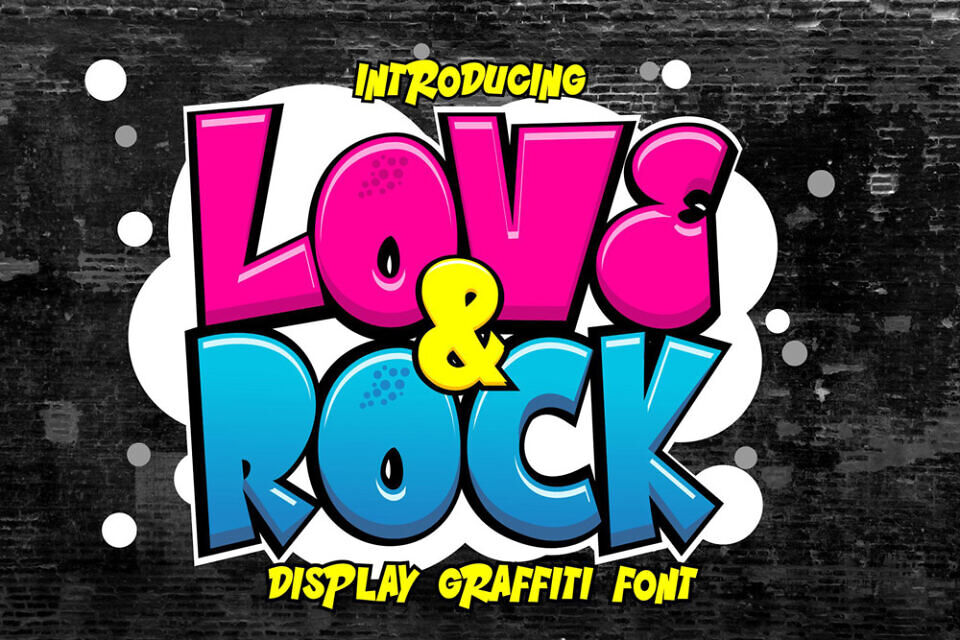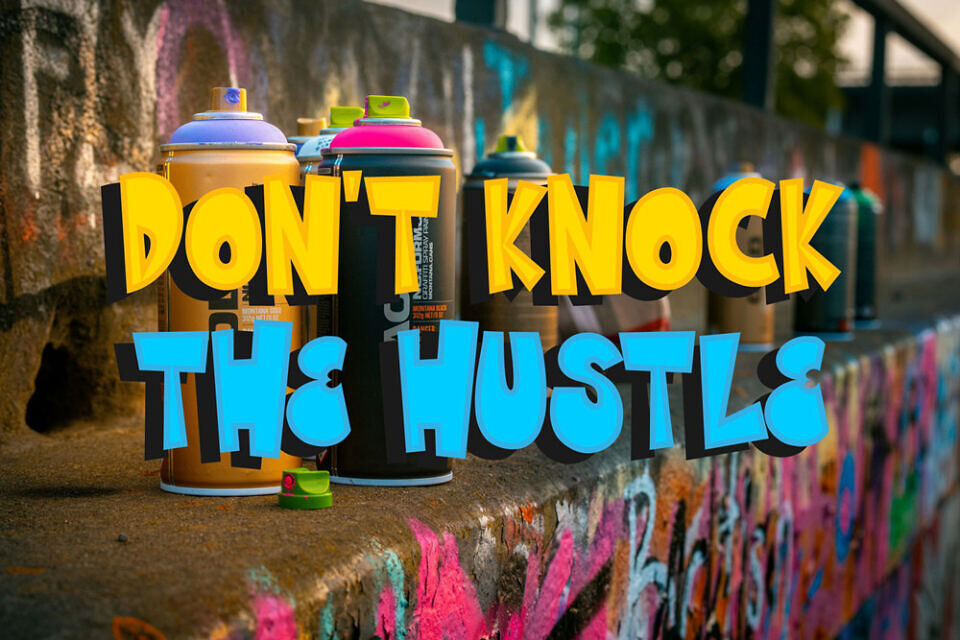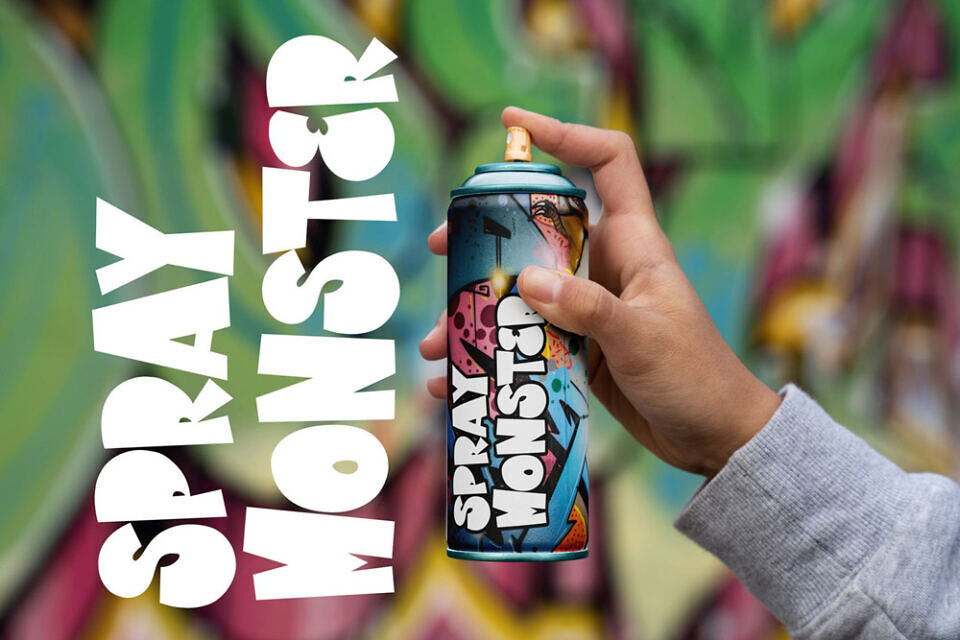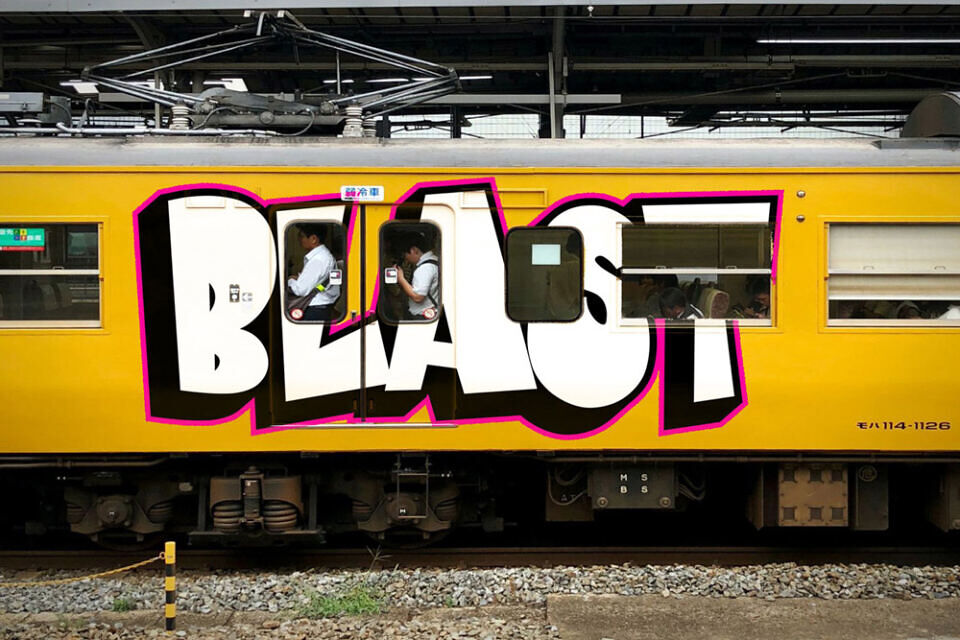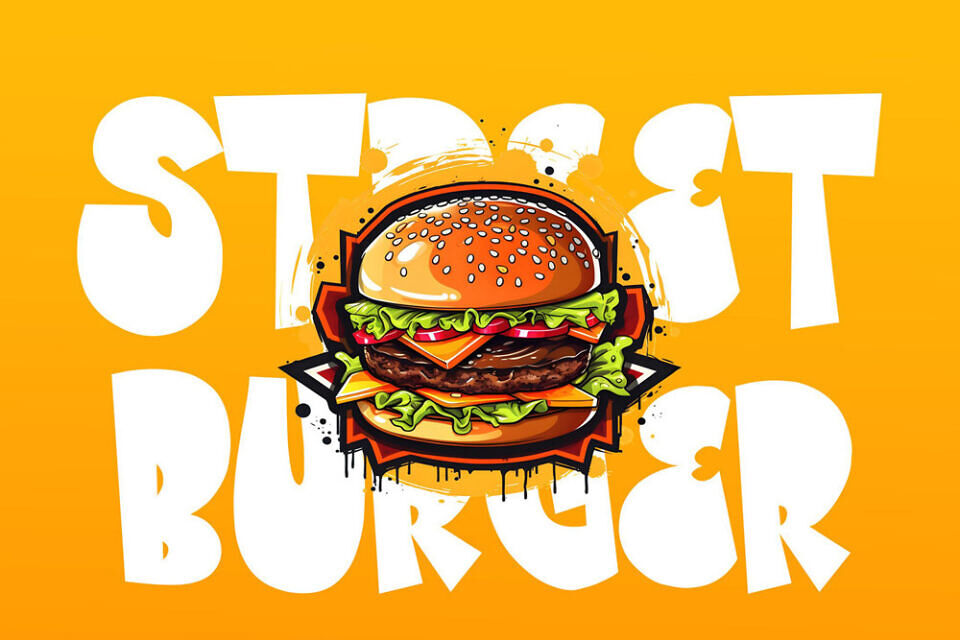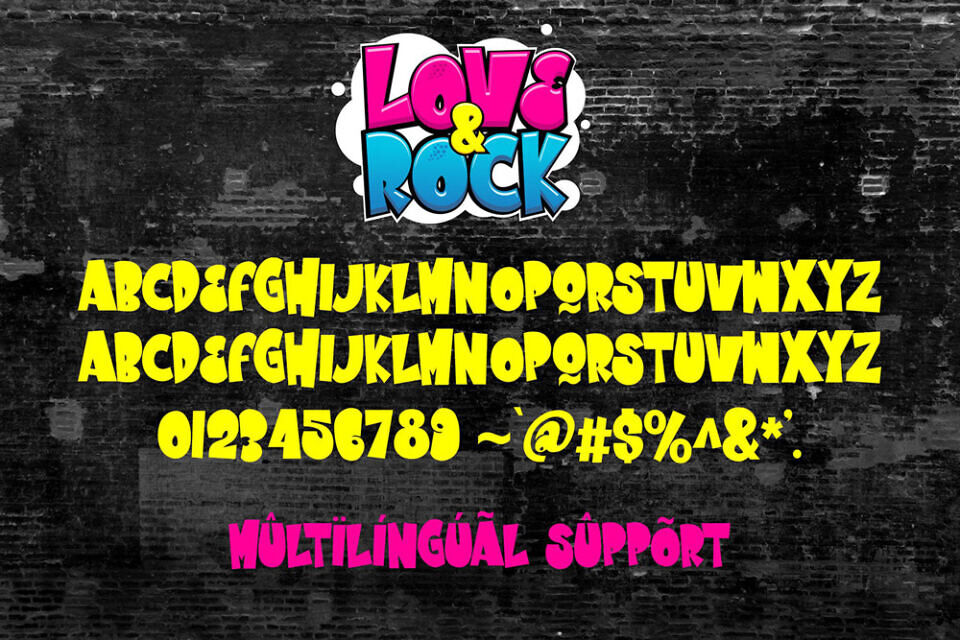
Love and Rock is a high-impact graffiti font that blends rebellious street energy with expressive rock-inspired lettering. Designed for creators who want to push boundaries, this urban graffiti font delivers a bold, emotional, and raw visual identity that instantly grabs attention.
Whether you’re designing for streetwear, music branding, or edgy posters, Love and Rock graffiti font gives your typography a fearless voice.